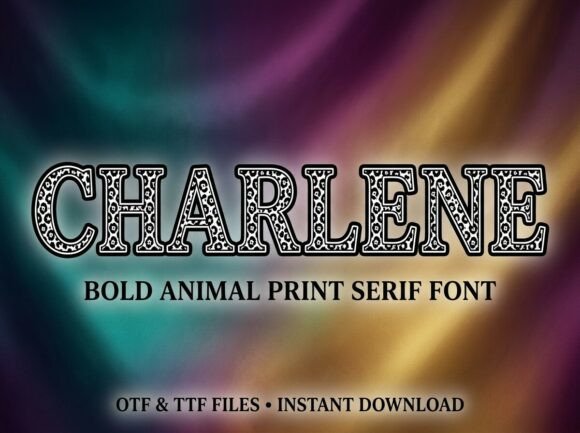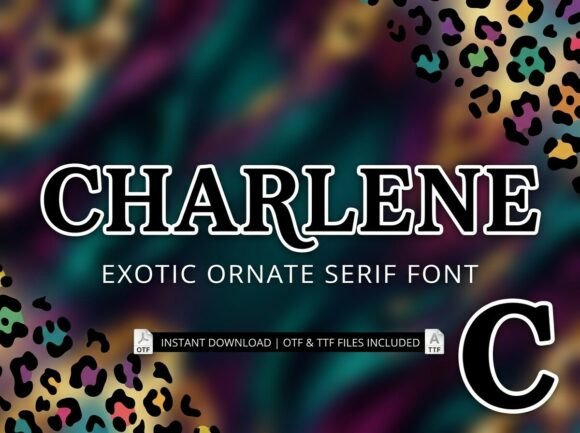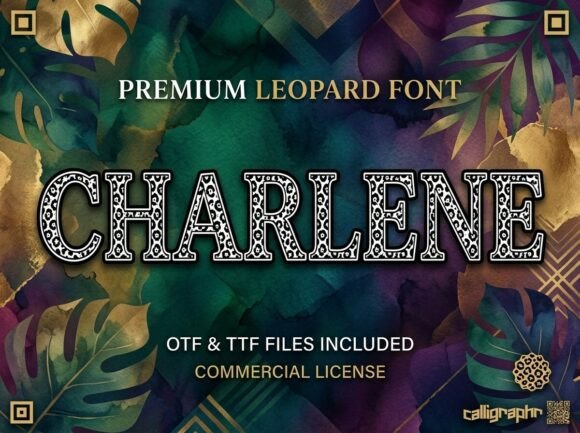
Introducing Charlene Font: The Ultimate Display Font for Creative Minds
Are you tired of using the same old fonts for your creative projects? Look no further! Charlene Font is a stunning decorative display font designed to grab attention and make your work stand out from the crowd. With its unique artistic elements and strong visual personality, this font is perfect for creators who want to break away from the ordinary and make a statement.
What Makes Charlene Font Special?
Charlene Font is a versatile and sophisticated font that is perfect for bold headlines, artistic logos, and creative packaging. Its professional and polished finish ensures that your work looks high-end and visually appealing. Whether you’re a designer, crafty DIY enthusiast, or entrepreneur, this font is sure to elevate your creative projects to the next level.
⚠️ IMPORTANT NOTE BEFORE PURCHASE: Charlene Font is an ALL-CAPS (Uppercase Only) display typeface. This means that it does not include lowercase letters. It is specifically designed for high-impact headlines, logos, and decorative initials where every letter is a work of art.
This unique design feature allows for a level of artistic expression and creativity that’s hard to achieve with traditional fonts. The all-caps design also ensures that your text stands out and demands attention, making it perfect for use in titles, headings, and promotional materials.
Use Cases for Charlene Font
Charlene Font is perfect for a wide range of creative projects, including:
- Headlines and Titles: Use Charlene Font to create bold and eye-catching headlines that grab attention and draw readers in.
- Logos and Branding: Create a unique and memorable logo for your business or brand with Charlene Font.
- Packaging and Label Design: Add a touch of elegance and sophistication to your packaging and label design with Charlene Font.
- Artistic Projects: Use Charlene Font to add a creative and artistic touch to your projects, such as posters, flyers, and brochures.
Tips for Using Charlene Font
Here are a few tips for getting the most out of Charlene Font:
- Experiment with Font Sizes: Charlene Font looks great in large sizes, but it can also be effective in smaller sizes. Experiment with different font sizes to find the perfect fit for your project.
- Play with Color and Texture: Add an extra layer of creativity to your design by experimenting with different colors and textures.
- Use it Sparingly: Because Charlene Font is a decorative display font, it’s best to use it sparingly. Use it for headlines and titles, and pair it with a more traditional font for body text.
Charlene Font is a unique and versatile decorative display font that’s perfect for creative minds. With its stunning artistic elements and strong visual personality, it’s sure to elevate your creative projects to the next level. Whether you’re a designer, crafty DIY enthusiast, or entrepreneur, Charlene Font is a great addition to your font library.